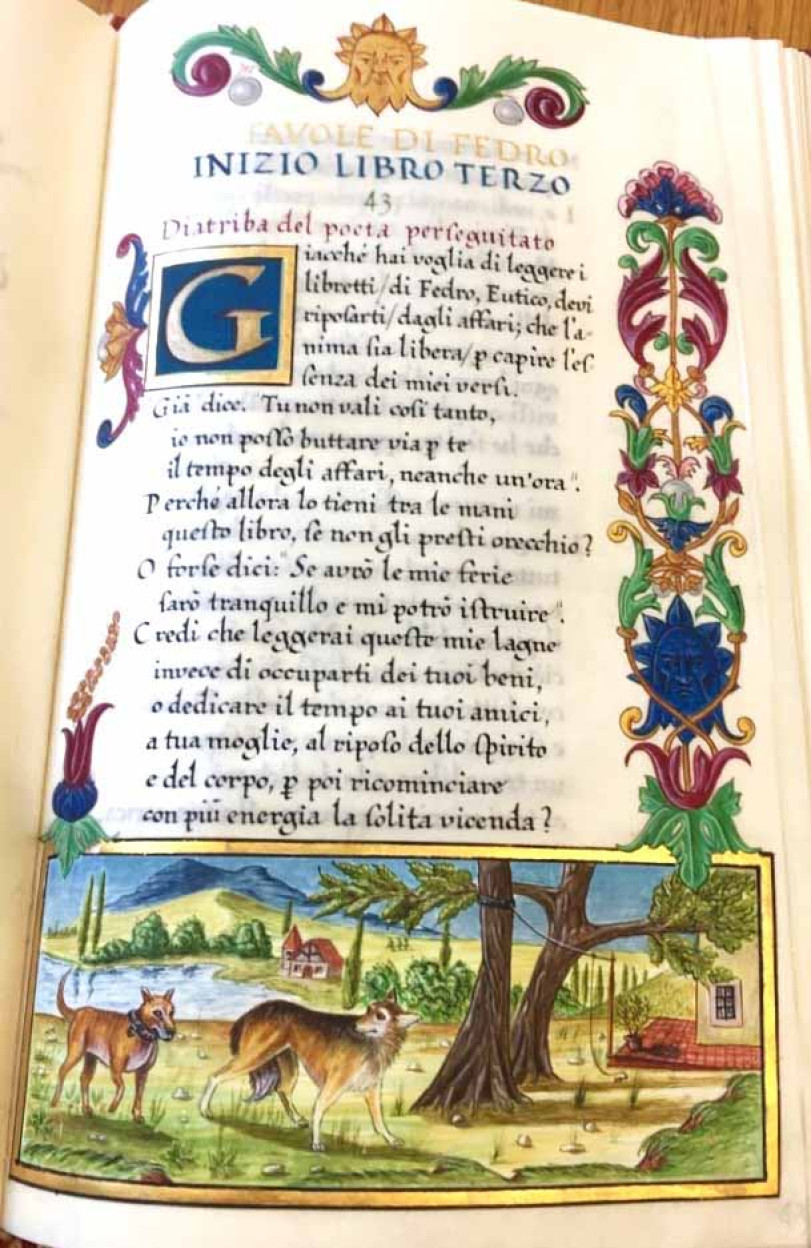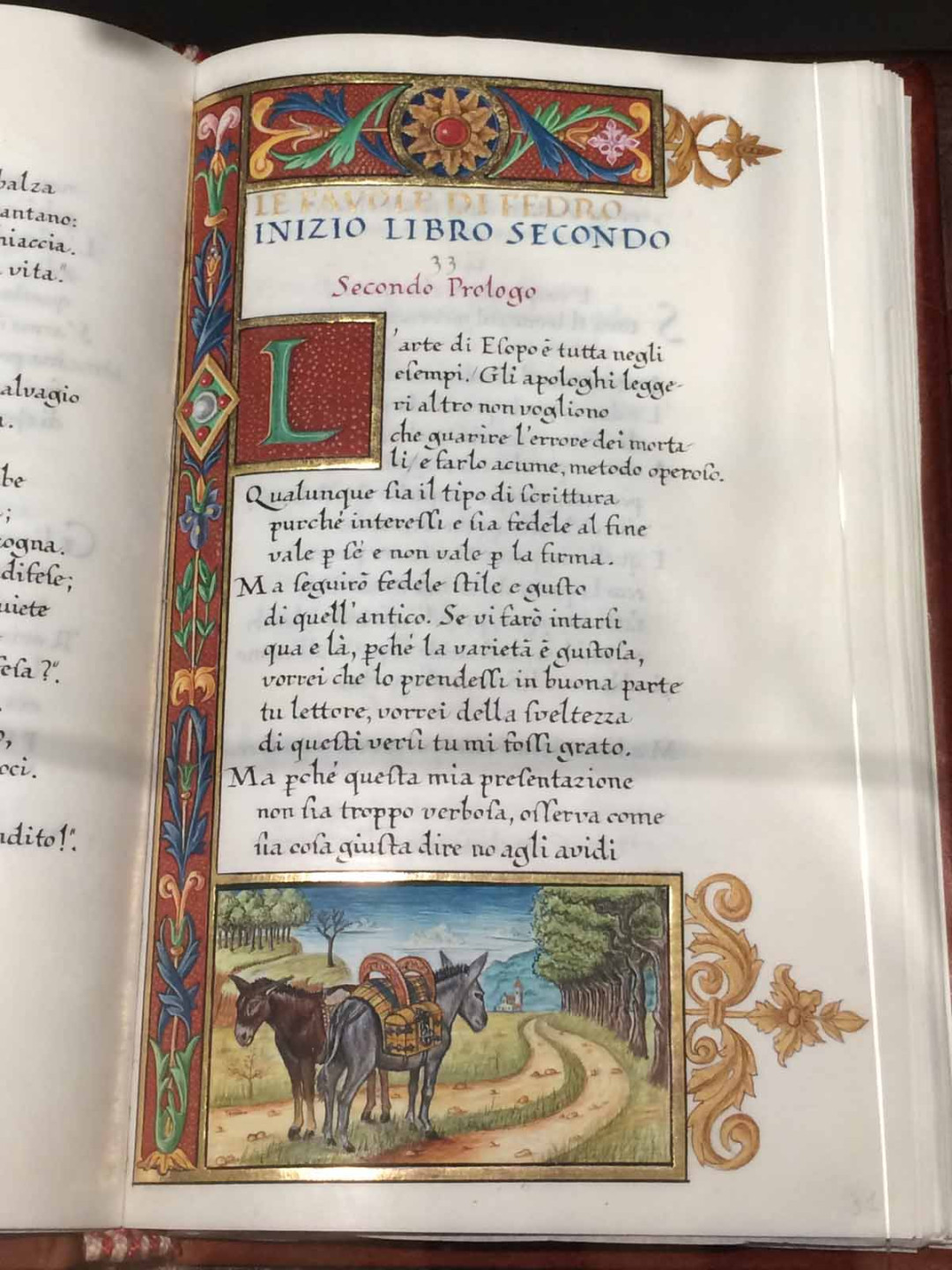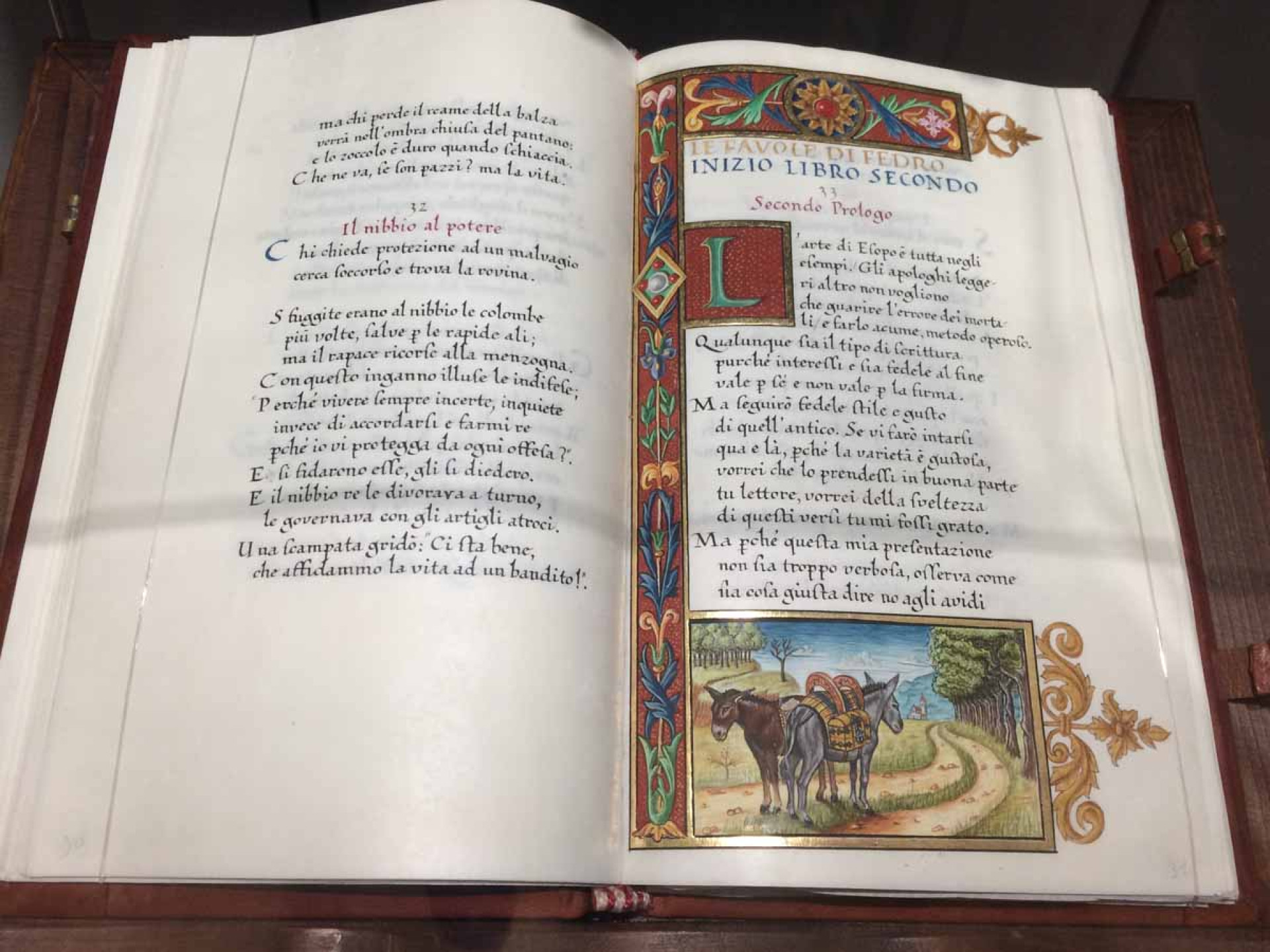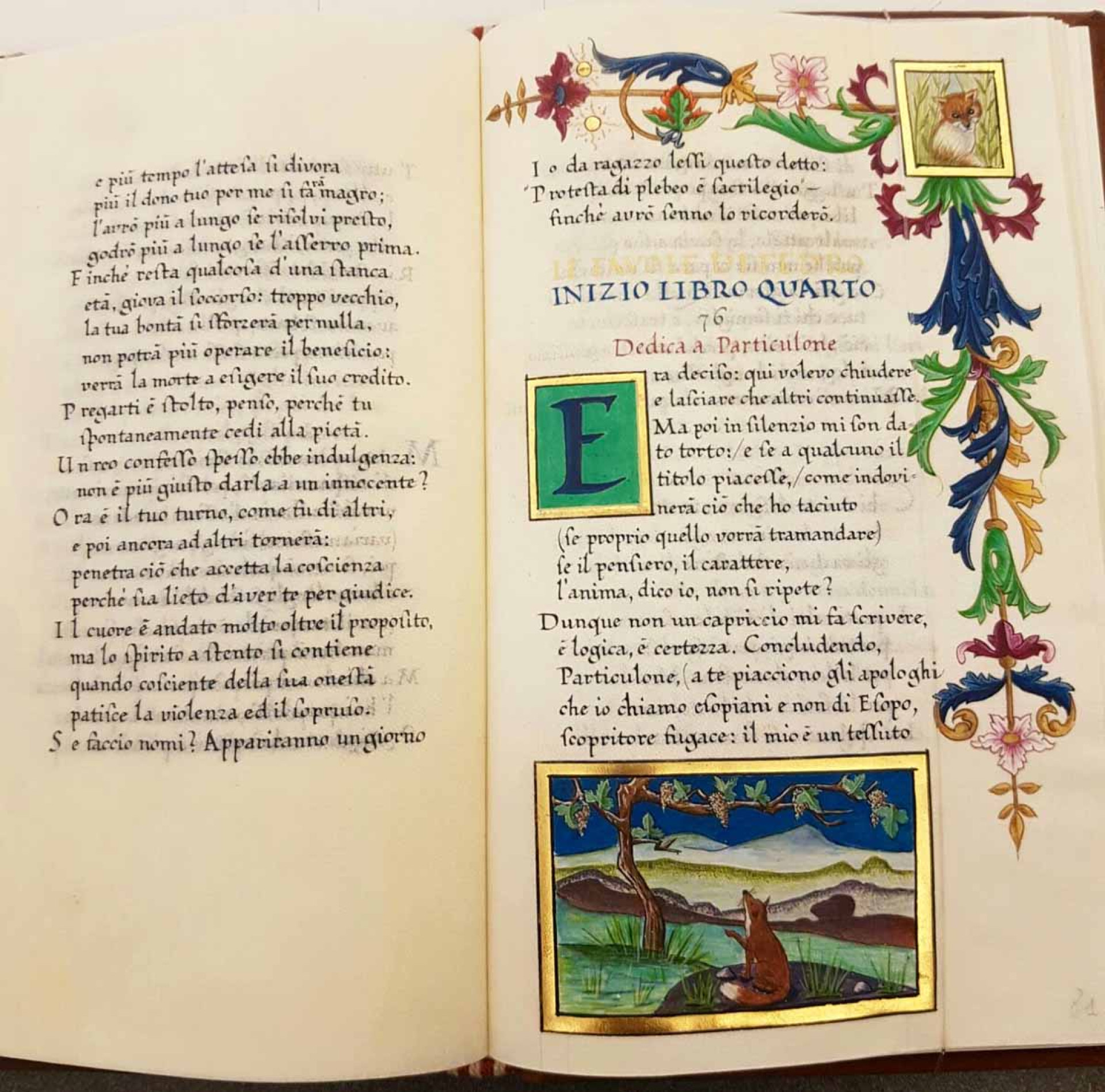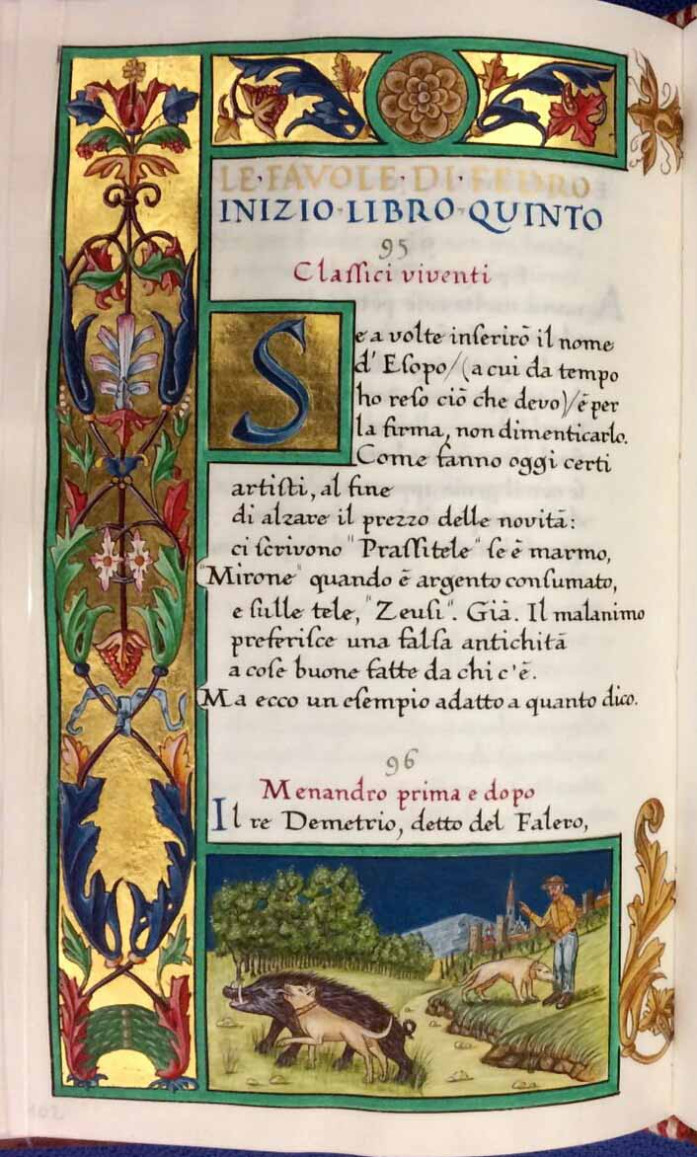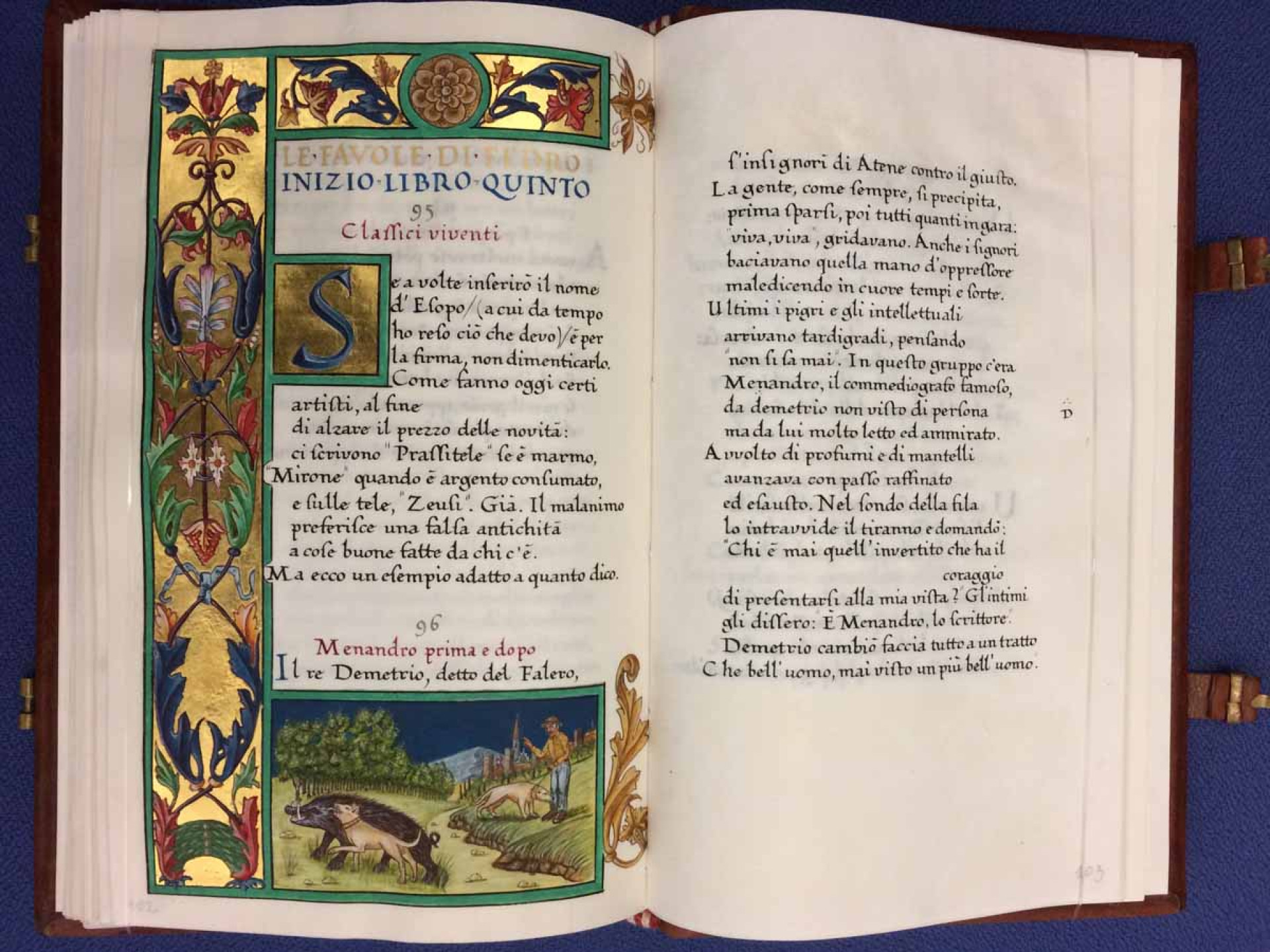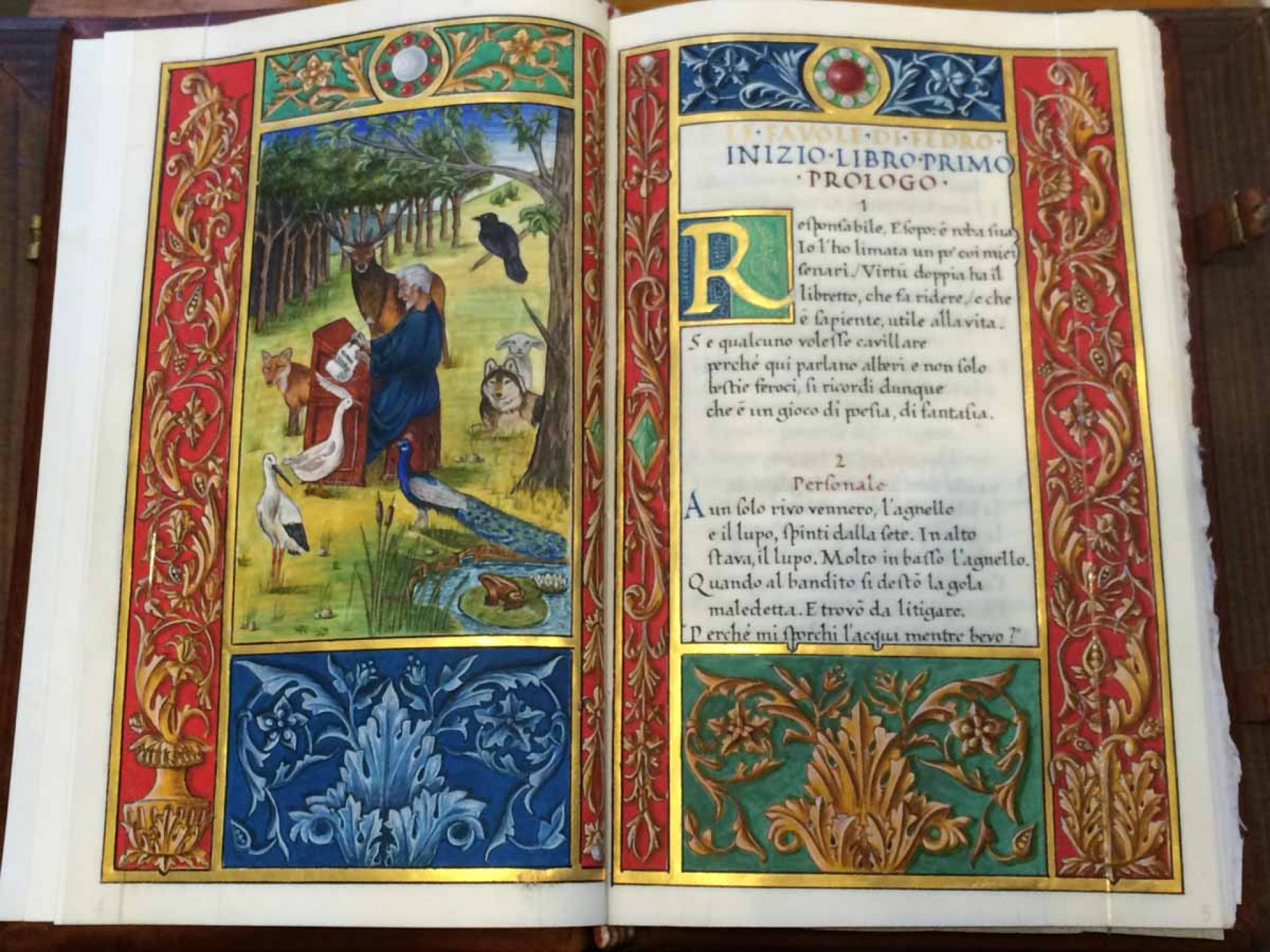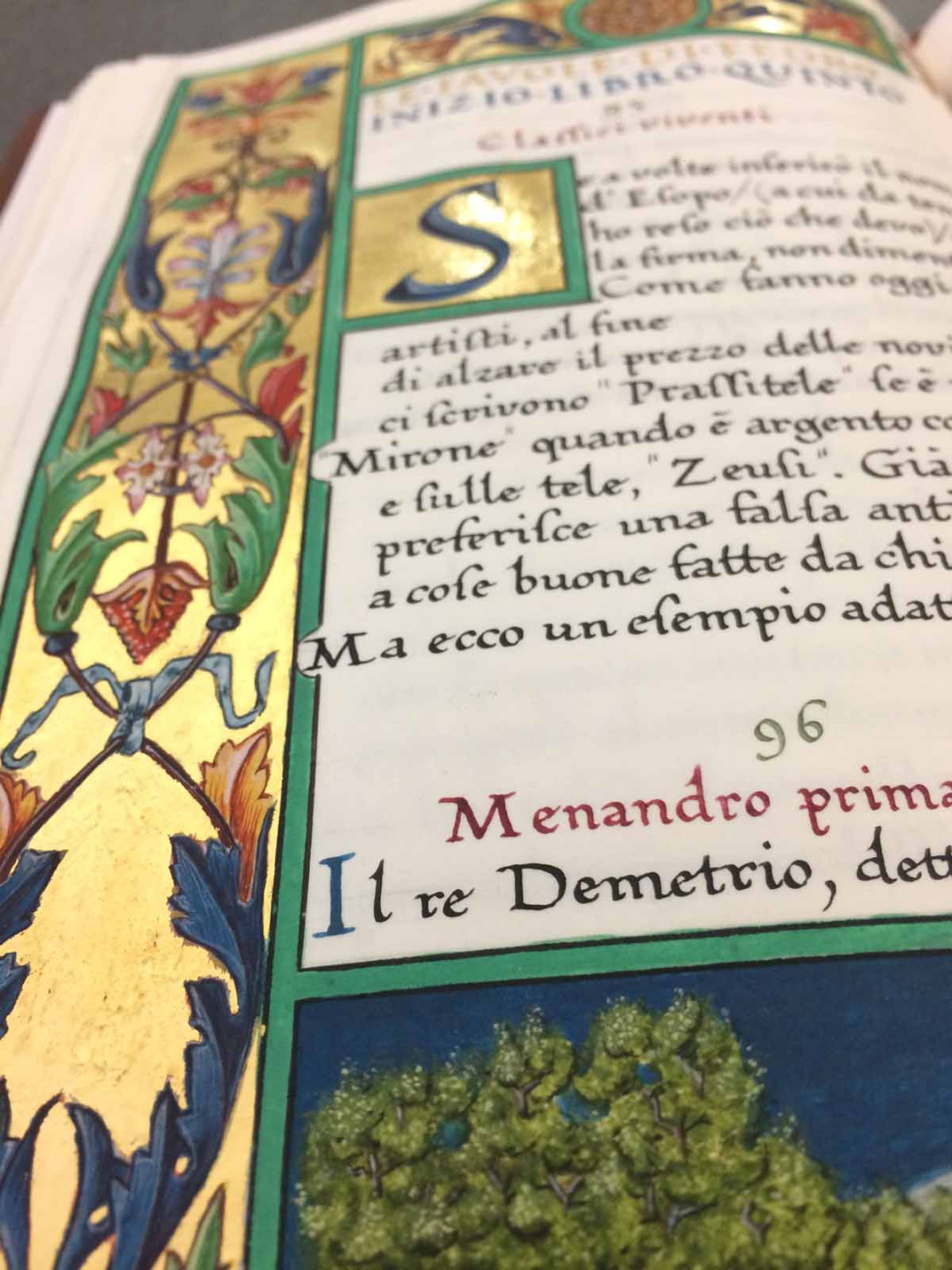
An Illuminated Manuscript by Ivano Ziggiotti
At the 2016 annual SLLA exhibition, we showcased An Illuminated Manuscript by Italian artist, Ivano Ziggiotti.
Ivano lives in Italy in a little town called Meleda, between Verona and Vicenza. He has been producing manuscripts since 2006 using all the traditional tools and pigments that were used in medieval times. The SLLA is very grateful to Ivano for lending us his manuscript for the duration of the exhibition; it was a showstopper.